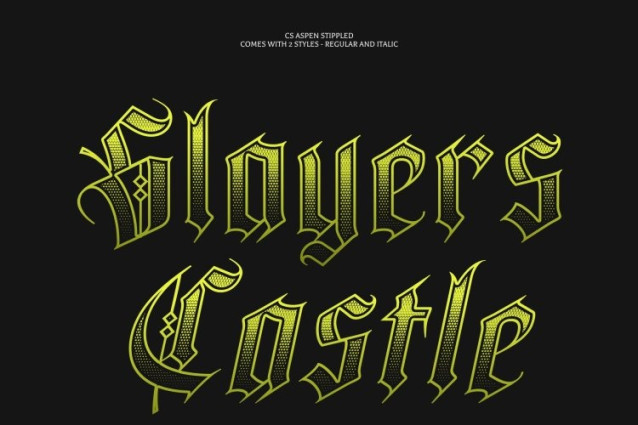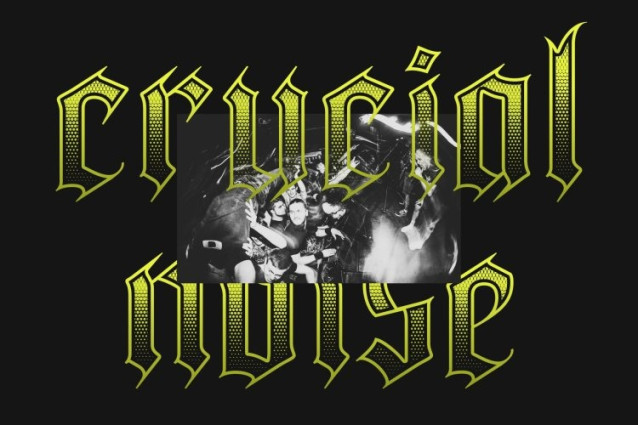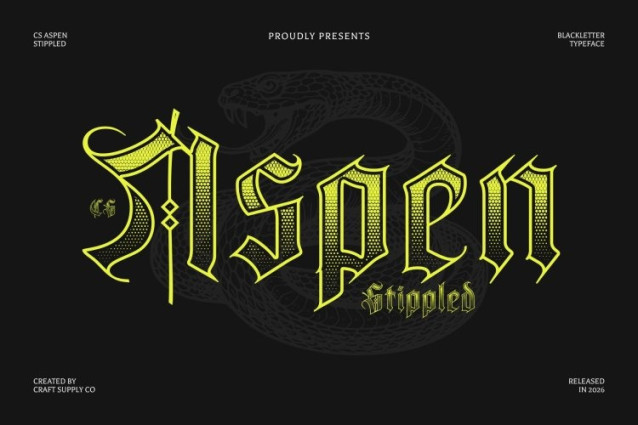
CS Aspen Stippled Font
CS Aspen Stippled Font This is a display font that embraces the grandeur of classic Blackletter while adding a handcrafted stippled texture. Inspired by traditional ink-dot and dotwork illustration techniques, the stippling enriches each letter with depth, dimension, and a subtle vintage character, enhancing the historical gravitas of its ornate forms.
Ornate, Dramatic, and Mysterious
Featuring thick, sharp strokes and intricate detailing, creates a dramatic and enigmatic aesthetic. The stippled surface adds a tactile, engraved feel, amplifying the font’s sense of antiquity and sophistication. Each character exudes authority and elegance, perfect for high-impact headlines and decorative typography.
Ideal for Historical, Elegant, and Themed Projects
This is perfectly suited for invitations, theater posters, luxury branding, editorial layouts, and any design requiring a touch of historical sophistication. The fusion of classic Gothic structure with stippled artistry ensures your project conveys mystery, elegance, and visual distinction.
Commanding Presence with Artistic Detail
The combination of bold Blackletter forms and stippled texture gives this font a commanding presence while maintaining artistic refinement. It’s a standout choice for designers seeking a vintage, handcrafted, and historically inspired display font that makes every composition feel distinguished and memorable.